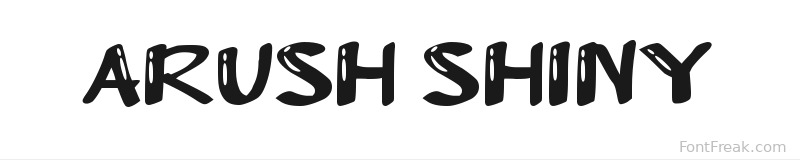
Arush Shiny
About Arush Shiny
Arush Shiny, designed by Wahyu Eka Prasetya in 2020, is a striking display font that falls under the decorative category. This font features a unique visual style characterized by its bold, chunky letterforms that are both playful and engaging. The stroke weight is consistent, providing a solid appearance, while the slight variation in contrast adds an element of dynamism. The spacing between letters is generous, enhancing readability and making it suitable for various design applications.
This font is particularly well-suited for a range of creative projects. It shines in contexts such as wedding invitations, where its eye-catching style can evoke a sense of celebration. Additionally, it works wonderfully for movie posters, capturing attention with its distinctive flair. Restaurant menus can benefit from the font’s playful nature, drawing diners in with a warm and inviting presentation. Moreover, it is ideal for branding purposes, especially for small businesses looking to create a memorable identity.
The target audience for the Arush Shiny font includes graphic designers, small business owners, and content creators who are seeking a bold and expressive typeface to enhance their projects. Its versatility makes it a valuable addition to any designer's toolkit.
What sets the Arush Shiny font apart is its ability to merge fun with functionality. The decorative elements, while striking, do not overwhelm the message, ensuring that readability remains intact. This balance makes it a standout choice for anyone looking to create visually compelling designs. With the Arush Shiny font free download available, you can easily incorporate this unique typeface into your next project and elevate your design work to new heights.